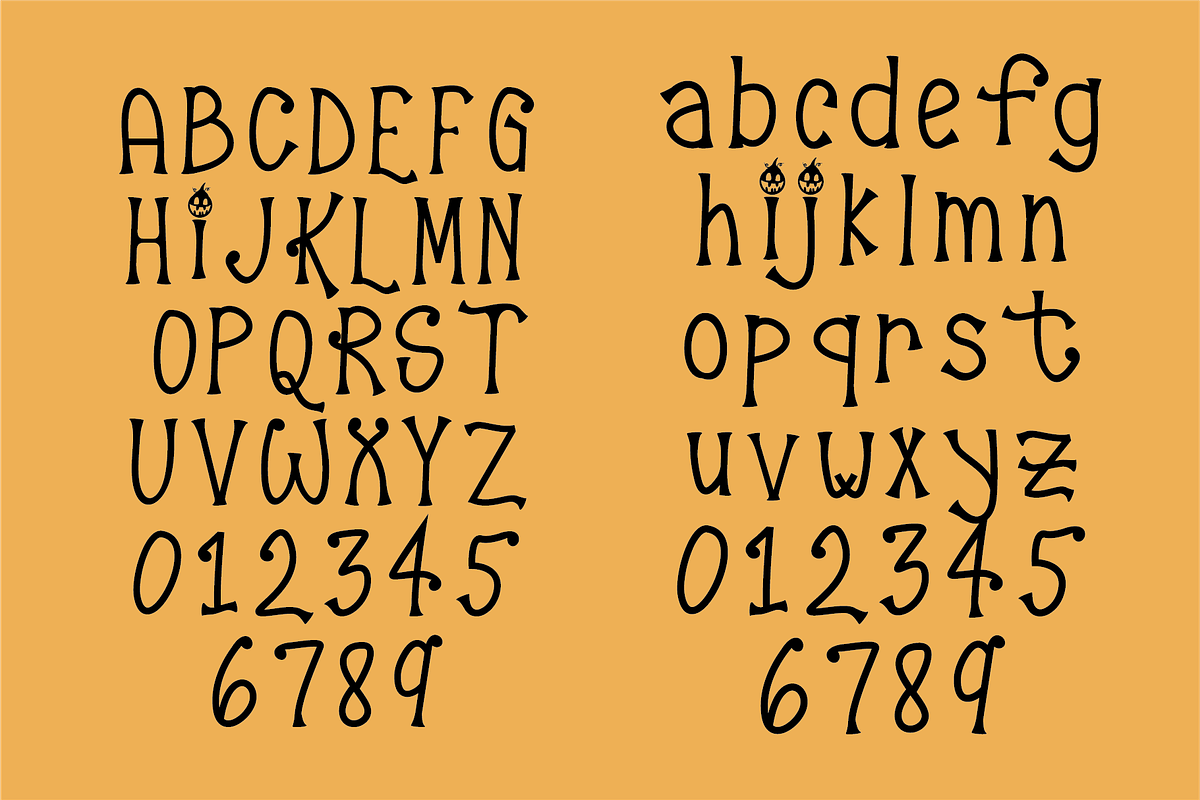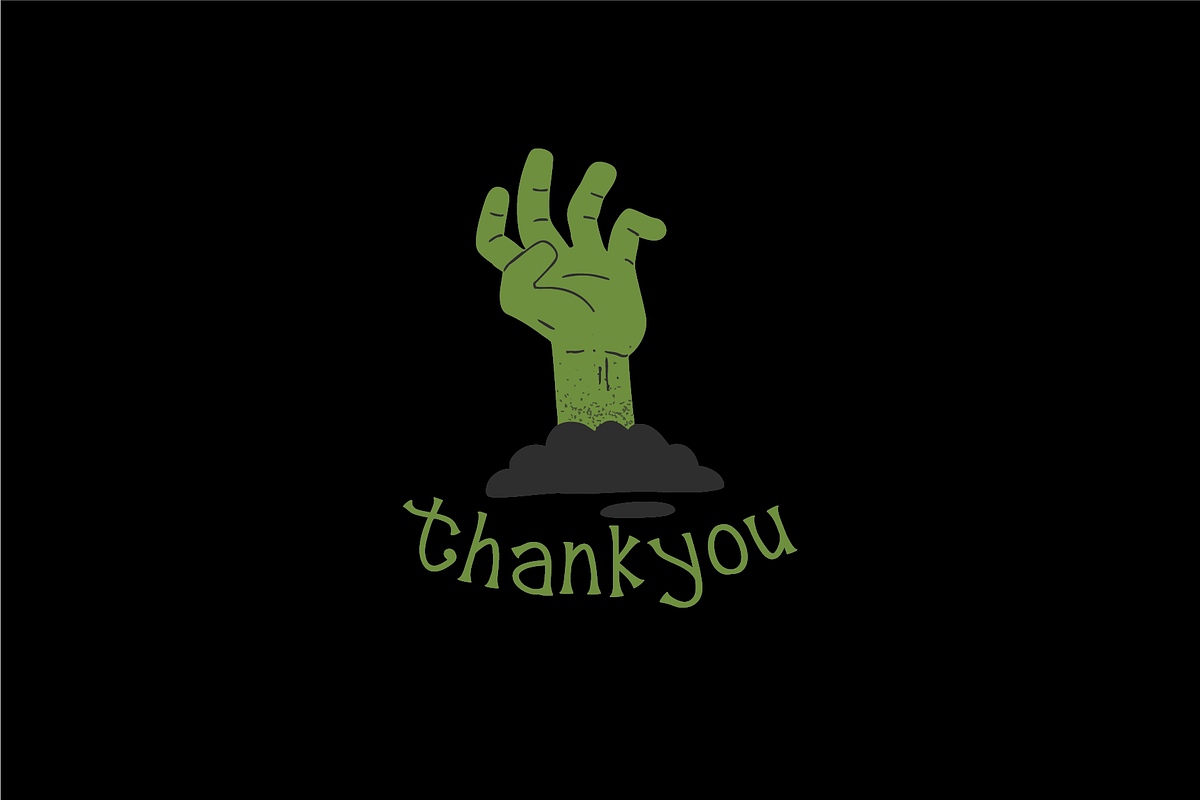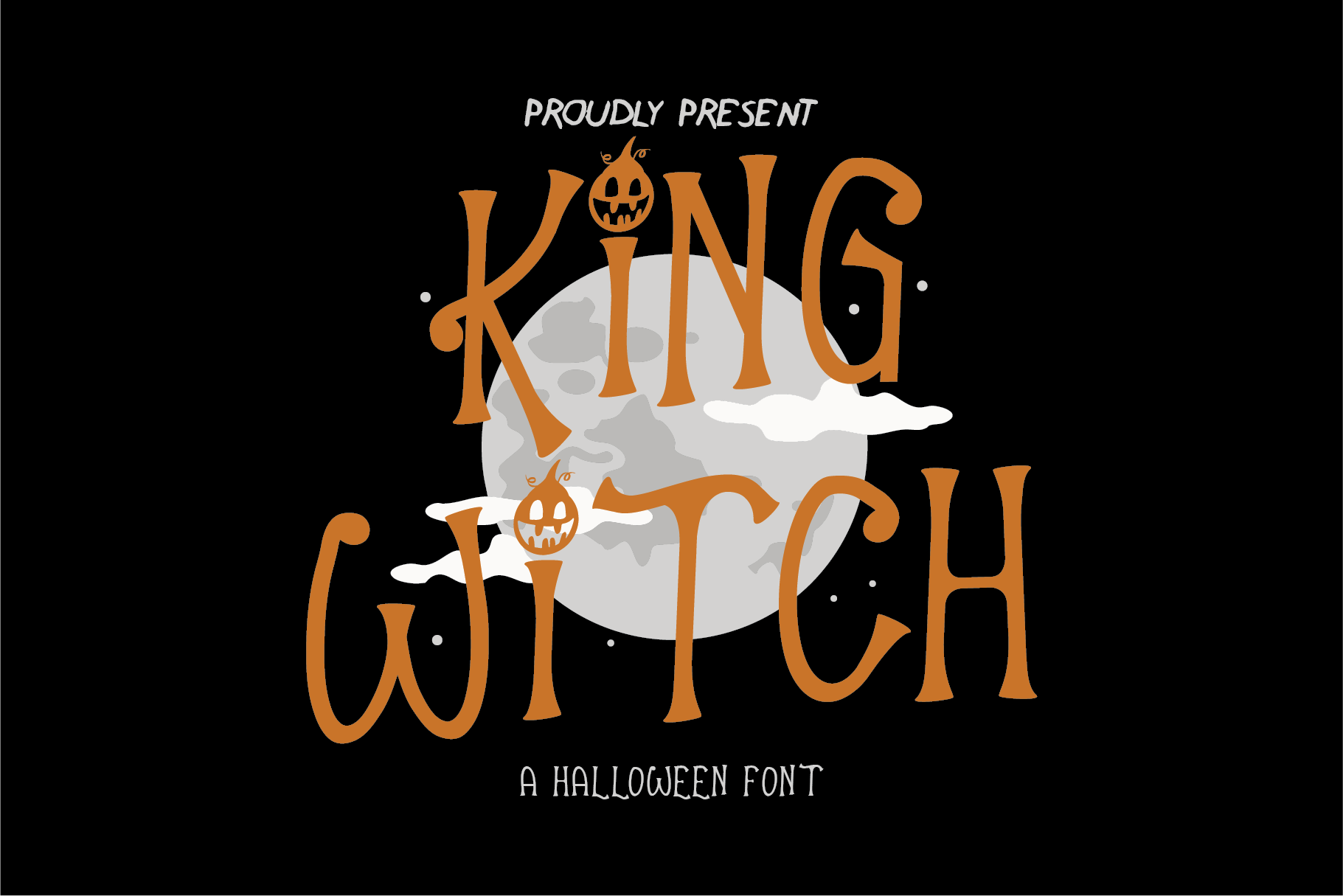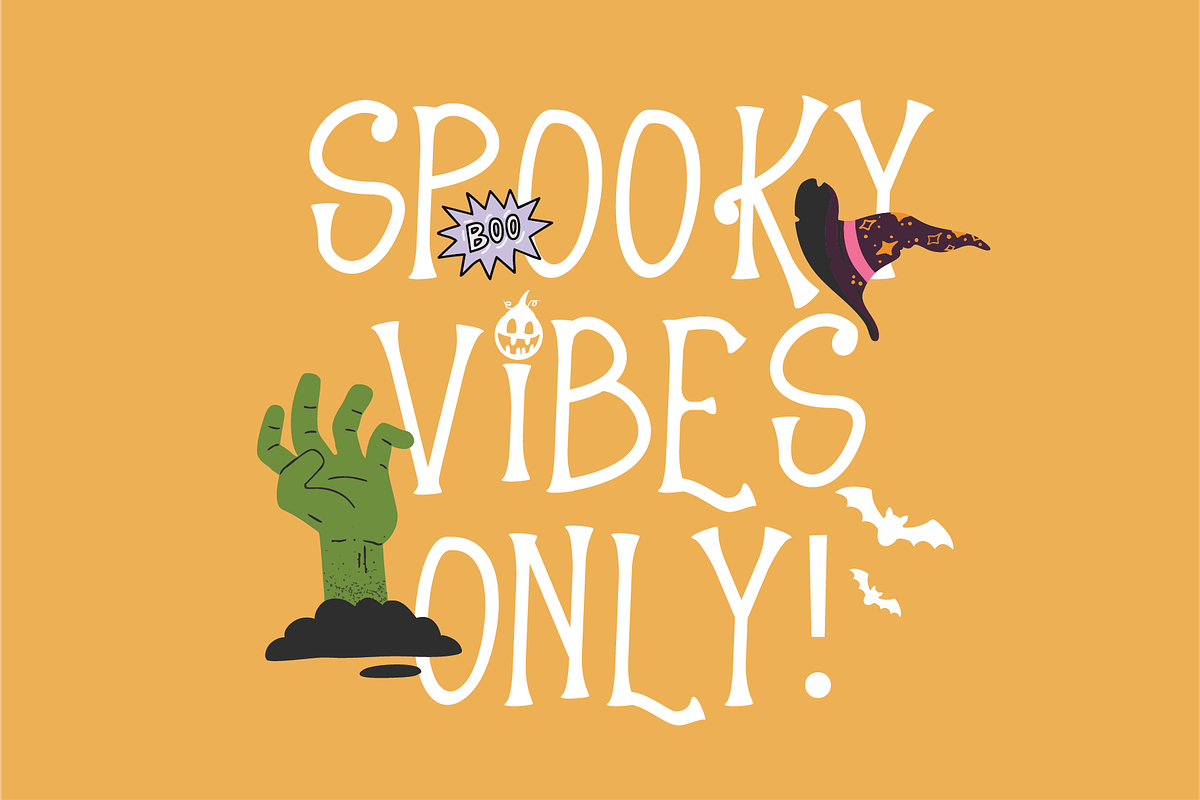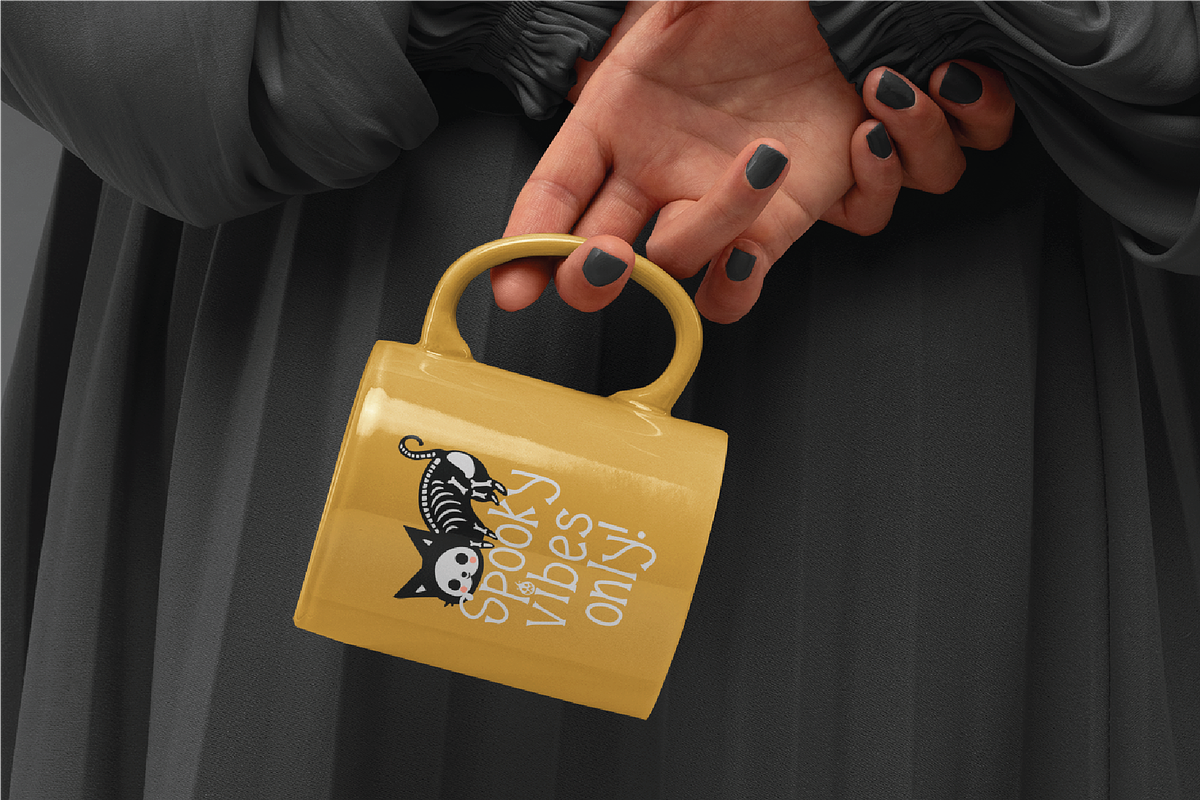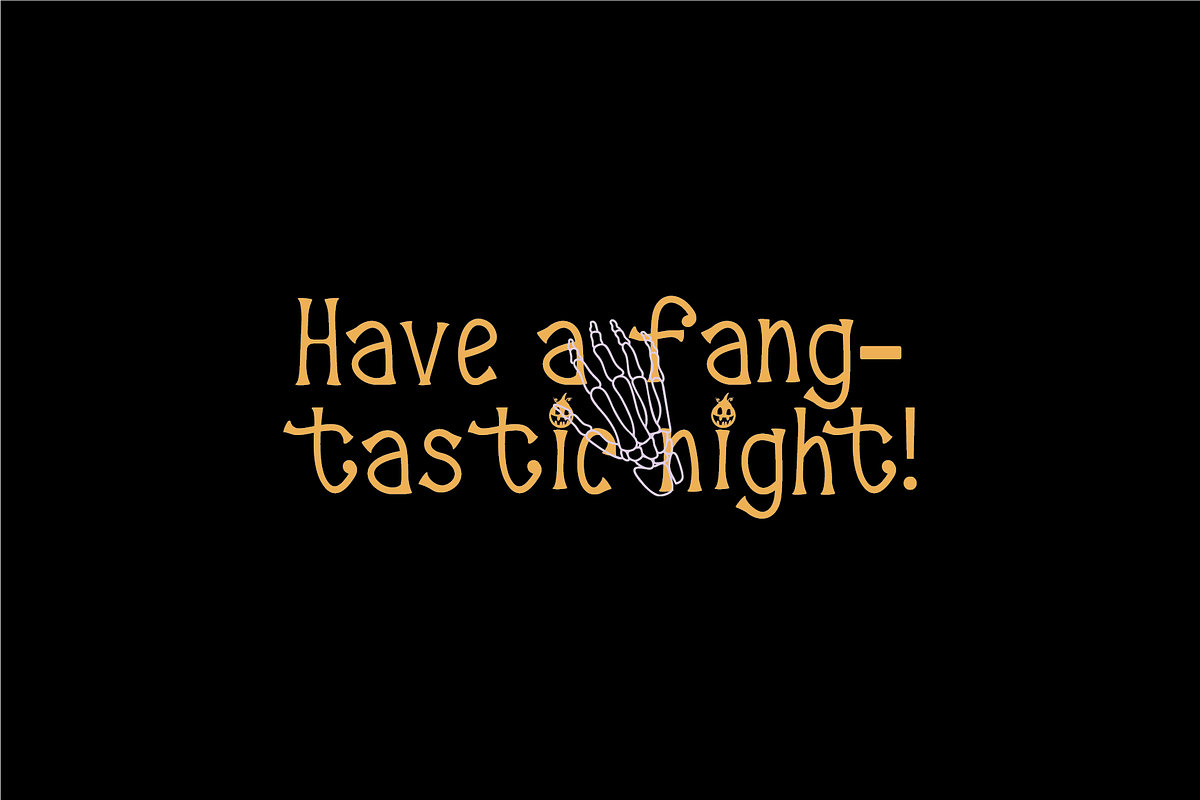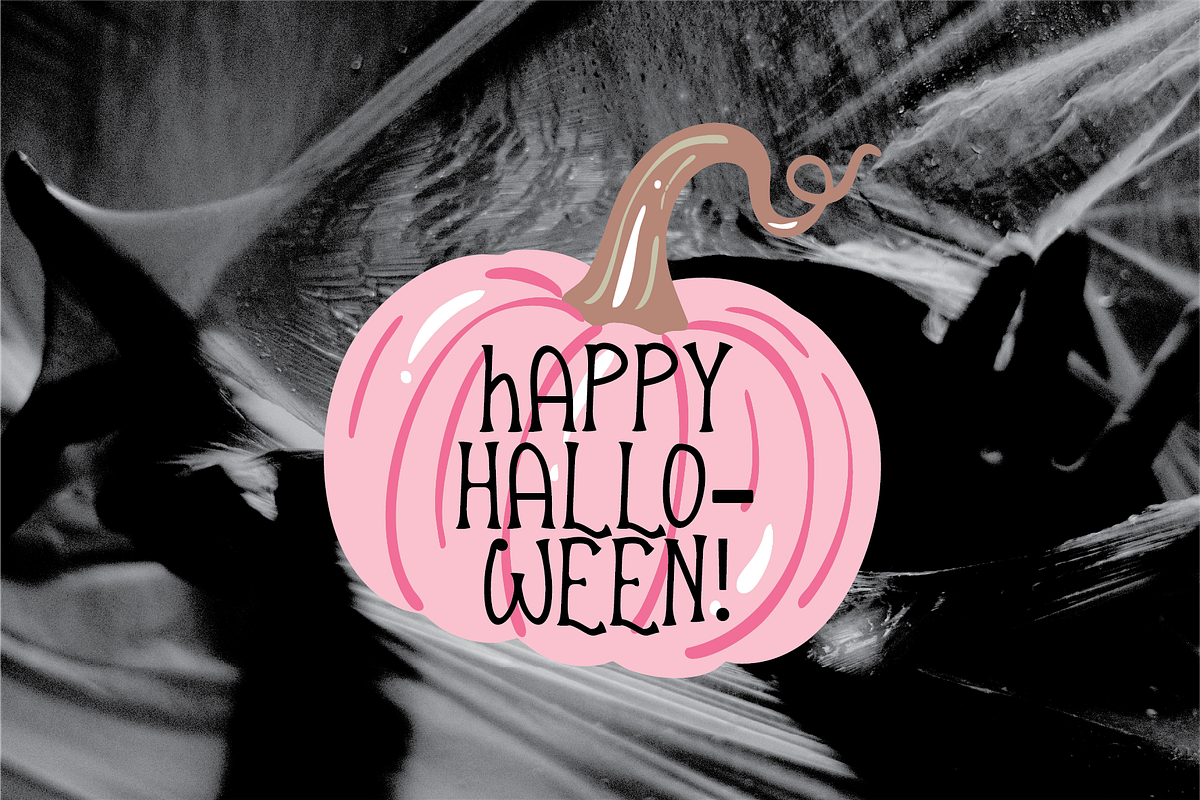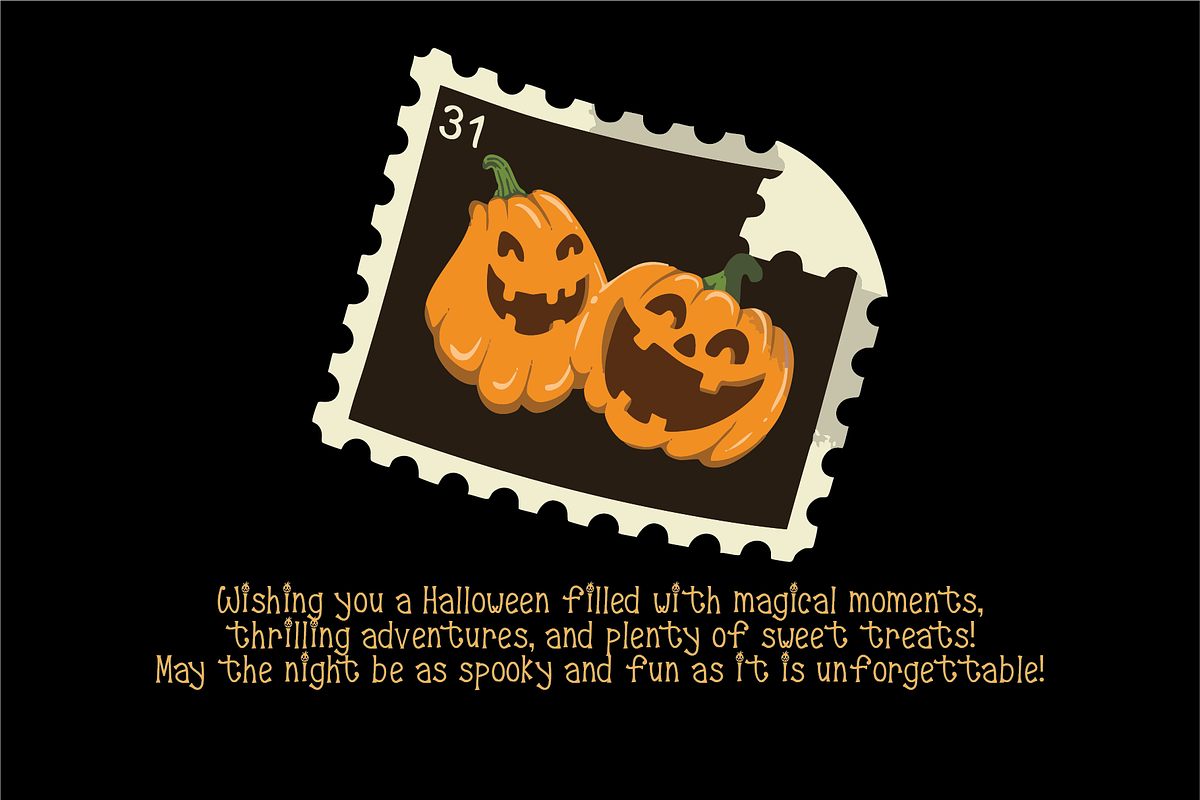
King Witch | Halloween Font
King Witch The font here is a bold, spooky Halloween-style display font with a playful yet eerie design. The letters are sharp, jagged, and rounded, and each character has subtle Halloween elements like pumpkin faces and clouds incorporated into the letters..
- Numbers, marks and symbols